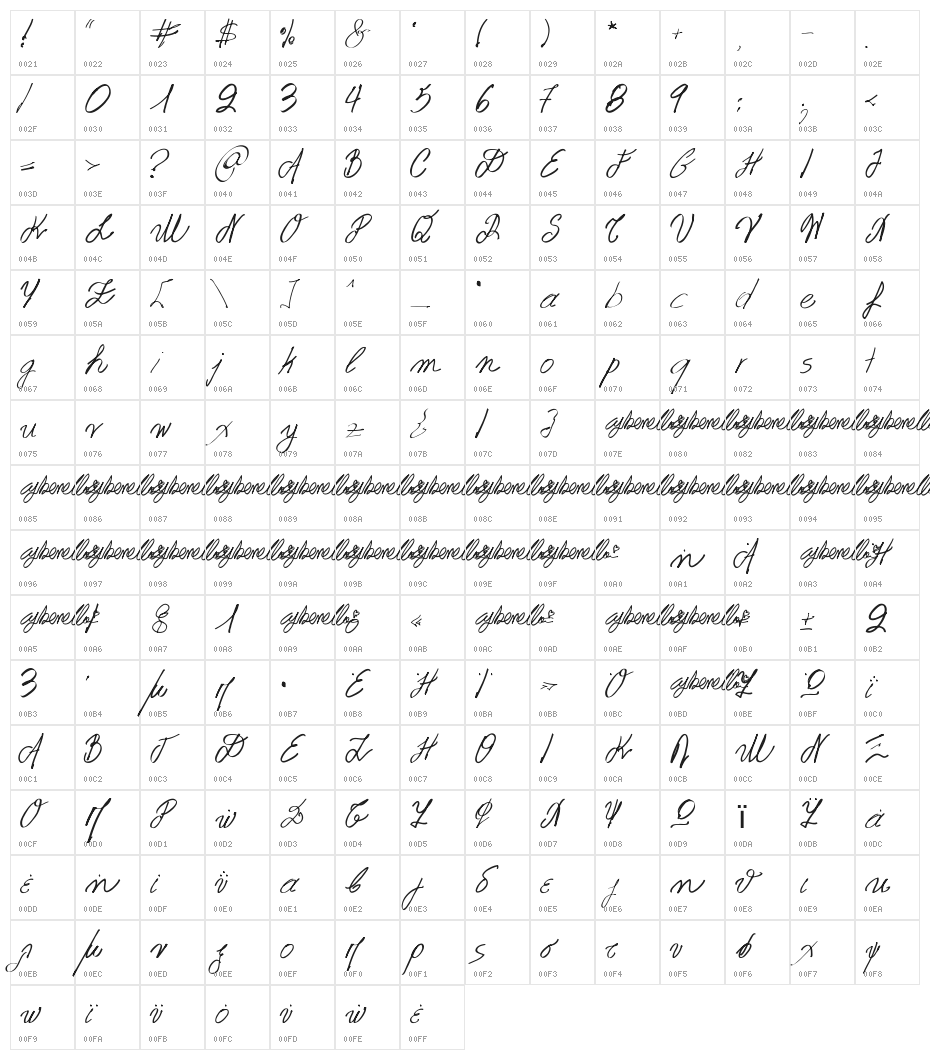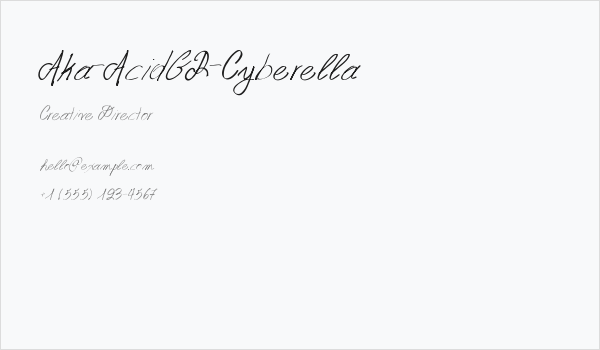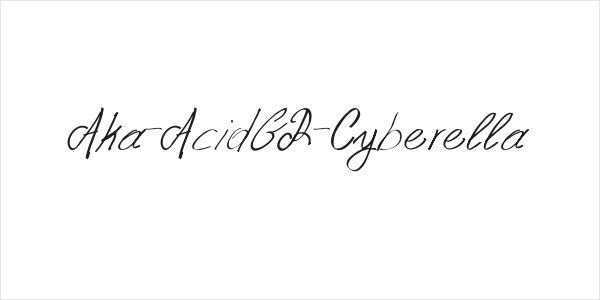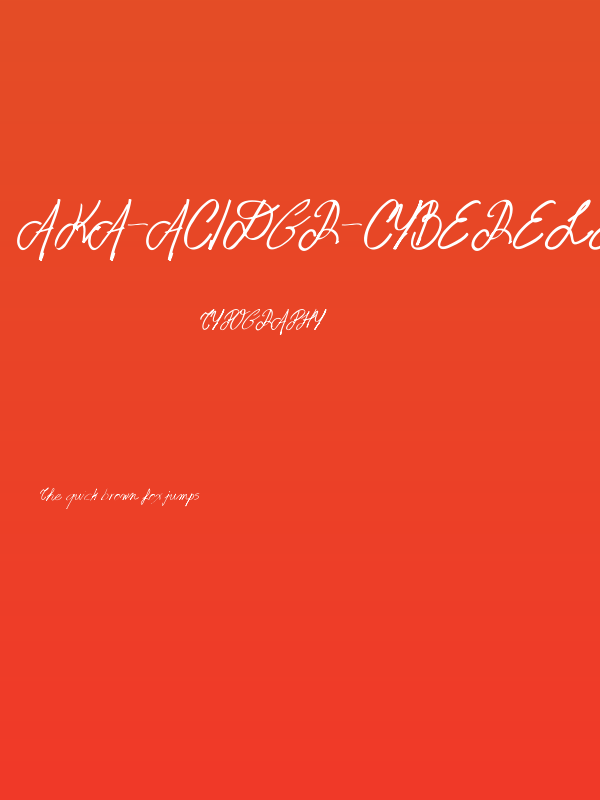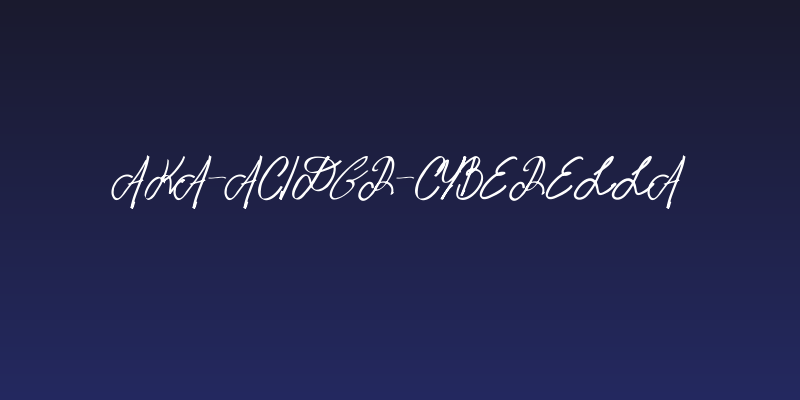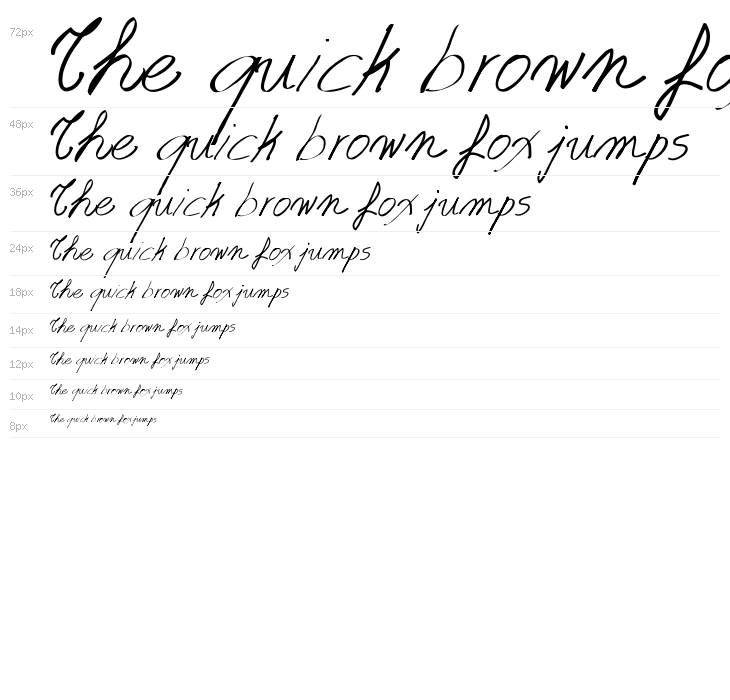
Aka-AcidGR-Cyberella Font
Aka-AcidGR-Cyberella Description
This font exhibits a dynamic and fluid script style, characterized by its handwritten appearance. The letters are connected with a smooth, flowing motion, giving it an elegant and personal touch. The uppercase letters maintain a consistent height, while the lowercase letters vary slightly in size, adding to the organic feel. The numerals are distinct and easily readable, maintaining the same fluidity as the letters. Special characters are integrated seamlessly, complementing the overall aesthetic. The strokes are moderately thick, providing a balanced contrast that enhances readability without sacrificing style.
| Overall Style | Elegant, Handwritten |
| Use Case | Invitations, Personal branding, Greeting cards |
| Proposed Projects | Ideal for wedding invitations, personal branding, greeting cards, and creative projects that require a personal touch. |